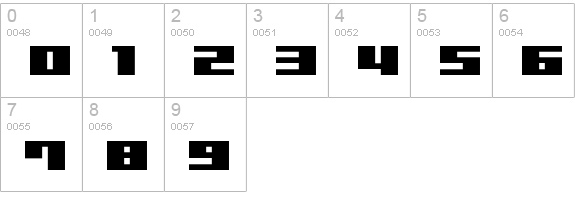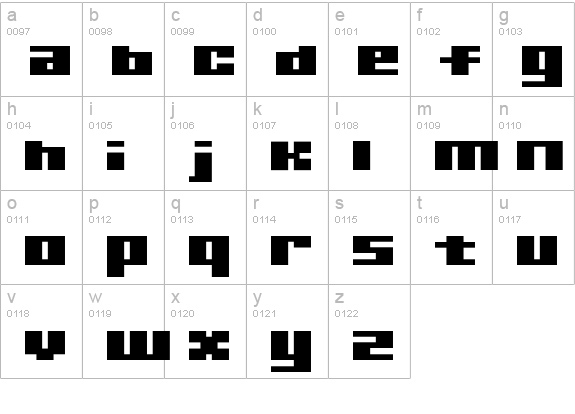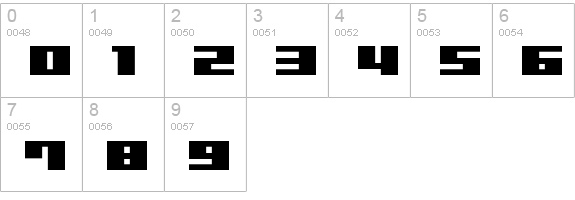
Ultra-Seven Font Details
Ultra-Seven is an extreme-weight, display variant in the Ultra typeface family \xE2\x80\x94 well suited to extreme display use where maximum visual weight is required.
Introducing Ultra-Seven, a captivating and versatile font that will take your design projects to the next level. With its sleek and futuristic aesthetic, this font exudes confidence and sophistication. Whether you're creating a bold logo, designing eye-catching posters, or crafting engaging social media graphics, Ultra-Seven is the perfect choice to make a lasting impression. What sets Ultra-Seven apart is not only its stunning design, but also the fact that it is available for free. Yes, you heard it right! This incredible font can be freely downloaded at FontsMarket.com, giving you the opportunity to add a touch of elegance to your creative endeavors without breaking the bank. Featuring a wide range of characters, including uppercase and lowercase letters, numbers, and punctuation marks, Ultra-Seven offers endless possibilities for customization. Its clean lines and modern appeal make it ideal for various design styles, from minimalist to futuristic. Whether you're aiming for a professional look or a cutting-edge vibe, this font effortlessly adapts to your vision. But don't let its sleek appearance fool you – Ultra-Seven is also highly legible, ensuring your message comes across loud and clear. Its carefully crafted letterforms guarantee readability, even at smaller sizes, making it perfect for both print and digital applications. So why wait? Download Ultra-Seven now from FontsMarket.com, and let your creativity soar. With its powerful presence and the freedom it offers, this font will undoubtedly become your go-to choice for all your design projects. Elevate your creations and leave a lasting impression with Ultra-Seven – the font that combines cutting-edge design with the accessibility of being freely available.